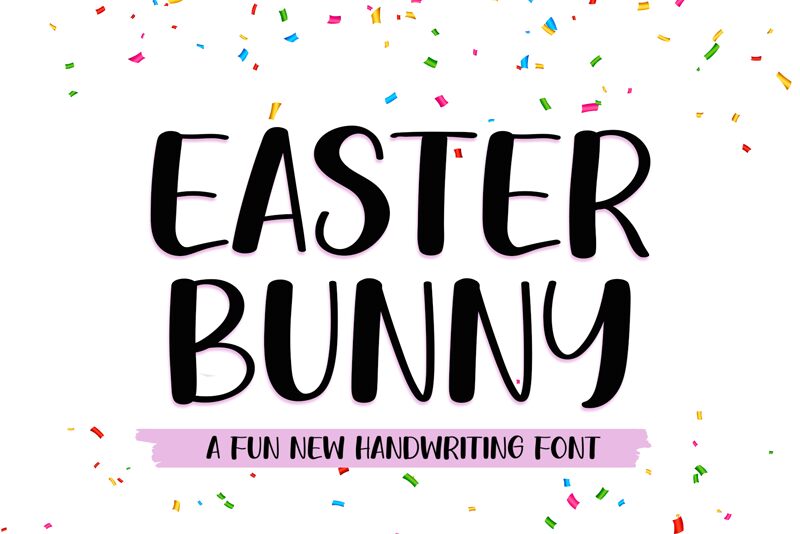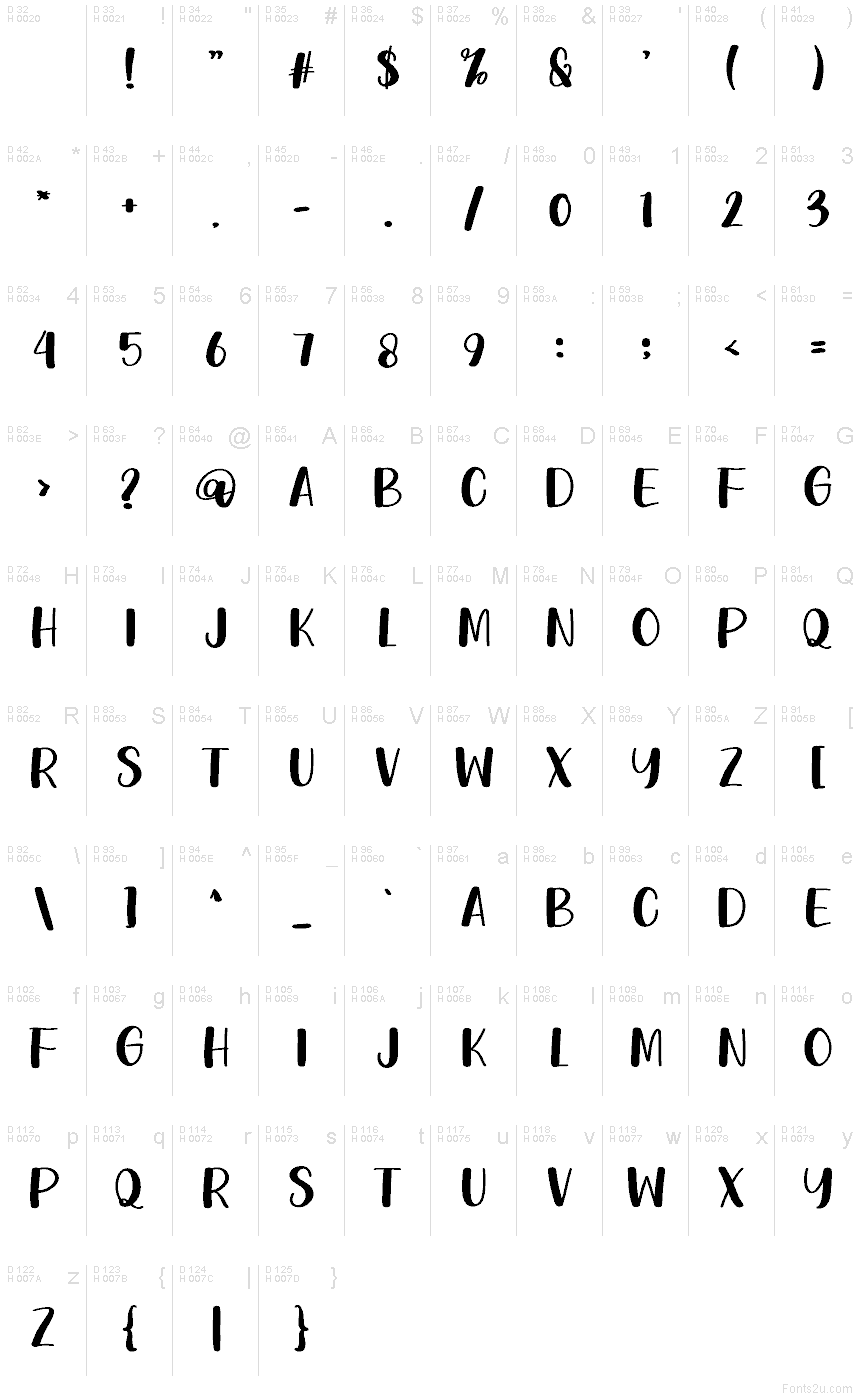
Easter Bunny
Easter Bunny font designed by Creatype Designer is a free brush typeface that radiates casual elegance with a whimsical touch. The letters have a friendly appearance, evident in their subtle irregularities and slopes. All strokes are seemingly notable for having the same width which enforces that hand-written style.
Use Easter Bunny for designing invitation cards, social media posts, book covers, advertising campaigns, kids’ stationary items, logotypes and branding projects in general.
This font retains a classy calligraphic influence while feeling contemporary and fresh. Its versatility makes it suitable for a wide range of creative ideas, from letterheads and titles to stationery.